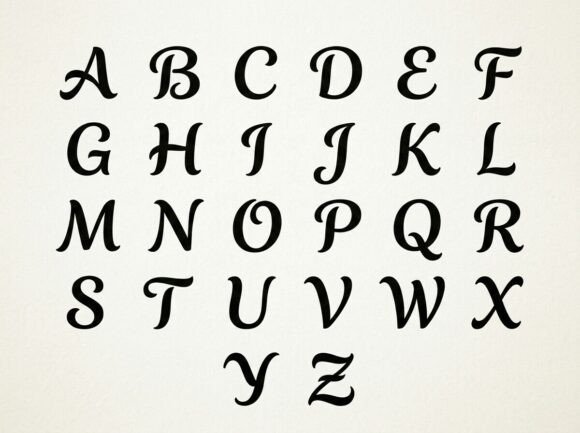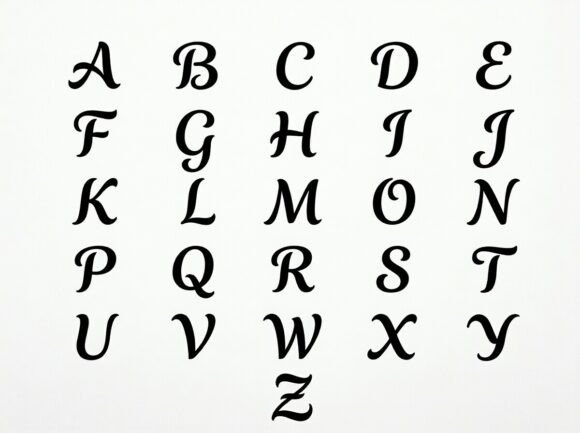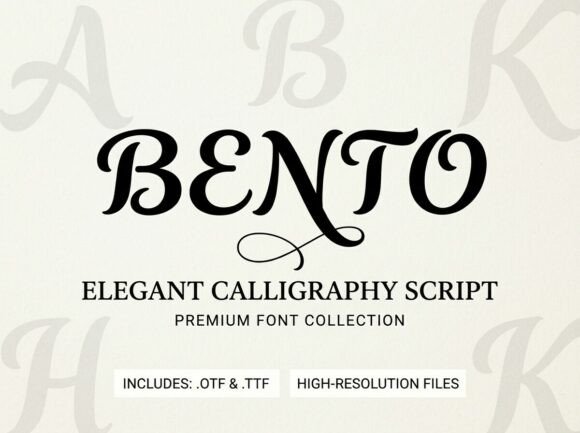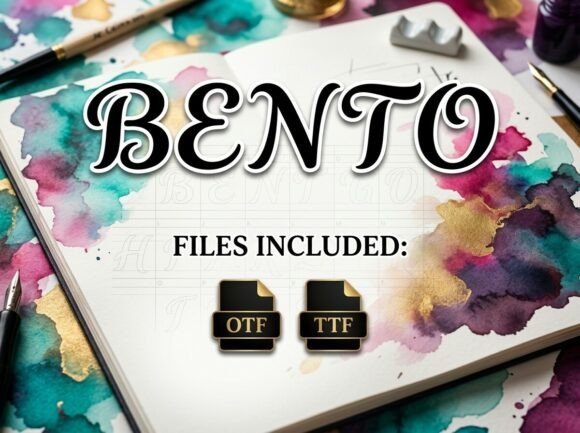
Introducing Bento Font: The Avant-Garde Decorative Display Font
Are you tired of using the same old fonts that seem to blend in with the crowd? Look no further than Bento Font, an avant-garde decorative display font designed to make a statement. With its commanding visual personality and unique artistic flourishes, this typeface is perfect for creators who refuse to blend in.
What Makes Bento Font Stand Out
Bento Font is characterized by its strong, artistic soul and high-end, polished finish. This font is engineered to be the focal point of any composition, making it ideal for luxury packaging, experimental editorial layouts, and high-impact headlines. The unique artistic flourishes and intricate craftsmanship of every individual letter make it a standout in the world of typography.
Ideal Use Cases for Bento Font
Bento Font is versatile and can be used in a variety of design projects, including:
- High-impact headlines: Make a statement with your headlines using Bento Font’s bold and commanding presence.
- Signature logos & branding: Create a unique and memorable brand identity with Bento Font’s distinctive style.
- Conceptual packaging: Add a touch of luxury and sophistication to your packaging designs with Bento Font.
- Poster & social media design: Use Bento Font to create eye-catching posters and social media graphics that demand attention.
Important Note: All-Caps Display Typeface
Please note that Bento Font is an all-caps (uppercase only) display typeface. By omitting lowercase characters, the designer has focused entirely on the intricate craftsmanship of every individual letter, ensuring each one acts as a standalone work of art.
Why Choose Bento Font?
Bento Font is perfect for designers and crafters who want to add a touch of sophistication and elegance to their designs. With its unique artistic flourishes and high-end finish, this font is sure to make your designs stand out from the crowd.
Tips for Using Bento Font
Here are a few tips for using Bento Font effectively in your designs:
- Use it sparingly: Bento Font is a bold and attention-grabbing font, so use it sparingly to avoid overwhelming your design.
- Experiment with different colors: Bento Font looks great in a variety of colors, so don’t be afraid to experiment and find the perfect hue for your design.
- Pair it with a neutral font: Pair Bento Font with a neutral font to create a striking contrast and add visual interest to your design.
Bento Font is a unique and versatile font that is perfect for designers and crafters who want to add a touch of sophistication and elegance to their designs. With its commanding visual personality, unique artistic flourishes, and high-end finish, this font is sure to make a statement in any design project.